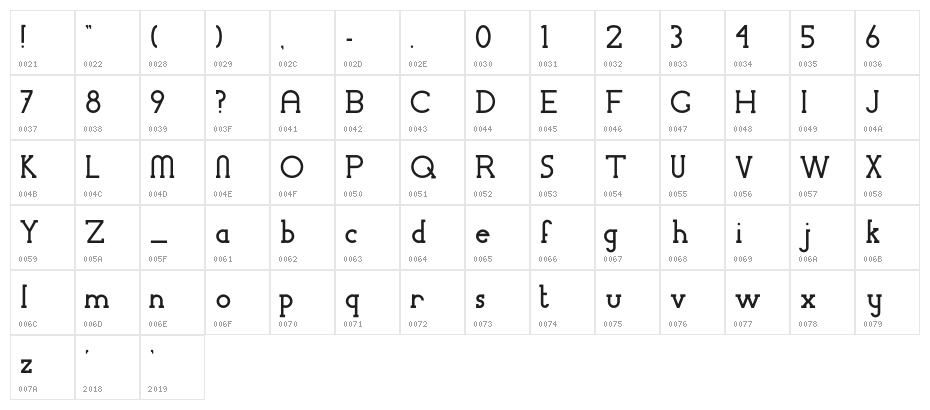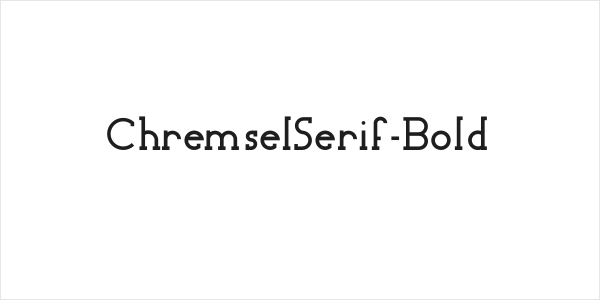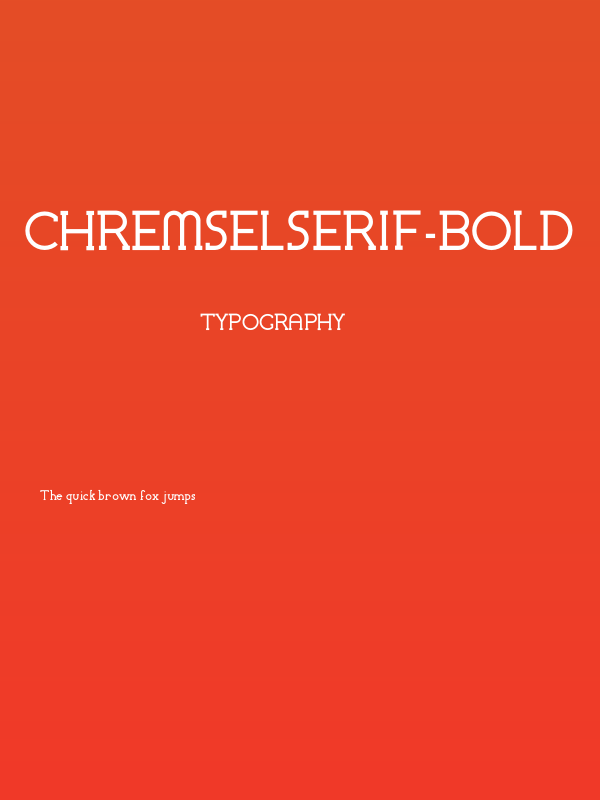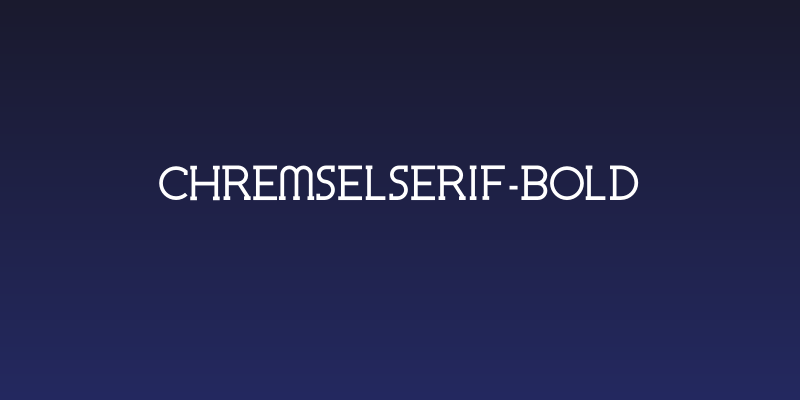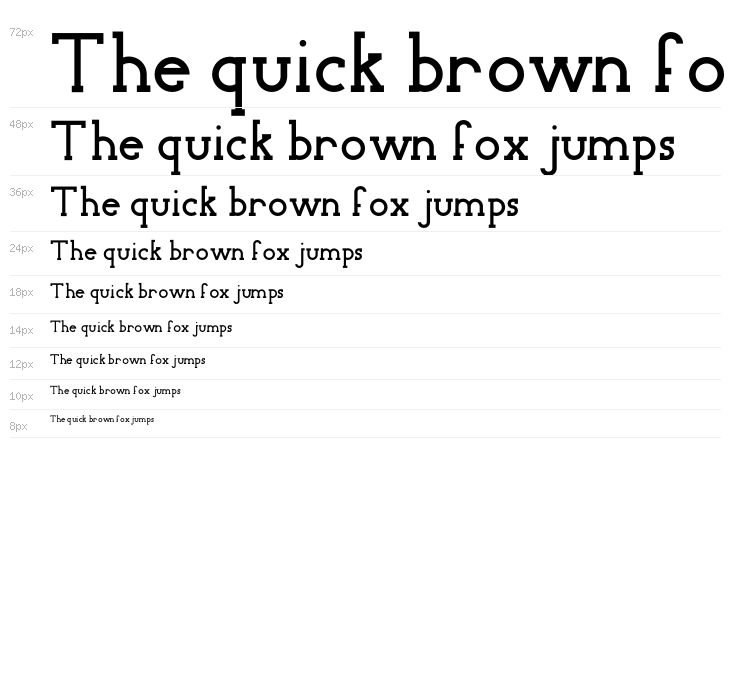
ChremselSerif-Bold Font
ChremselSerif-Bold Description
This font exhibits a bold and structured serif style, characterized by its strong vertical lines and subtle curves. The uppercase letters are tall and commanding, while the lowercase letters maintain a consistent height, offering a balanced and harmonious appearance. The numerals are clear and legible, with a uniform width that complements the overall design. Special characters are distinct and well-defined, ensuring readability across various contexts. The font's boldness and clarity make it suitable for impactful designs where emphasis is required.
| Proposed Projects | Ideal for headlines, branding, posters, and editorial design where a strong serif presence is desired. |